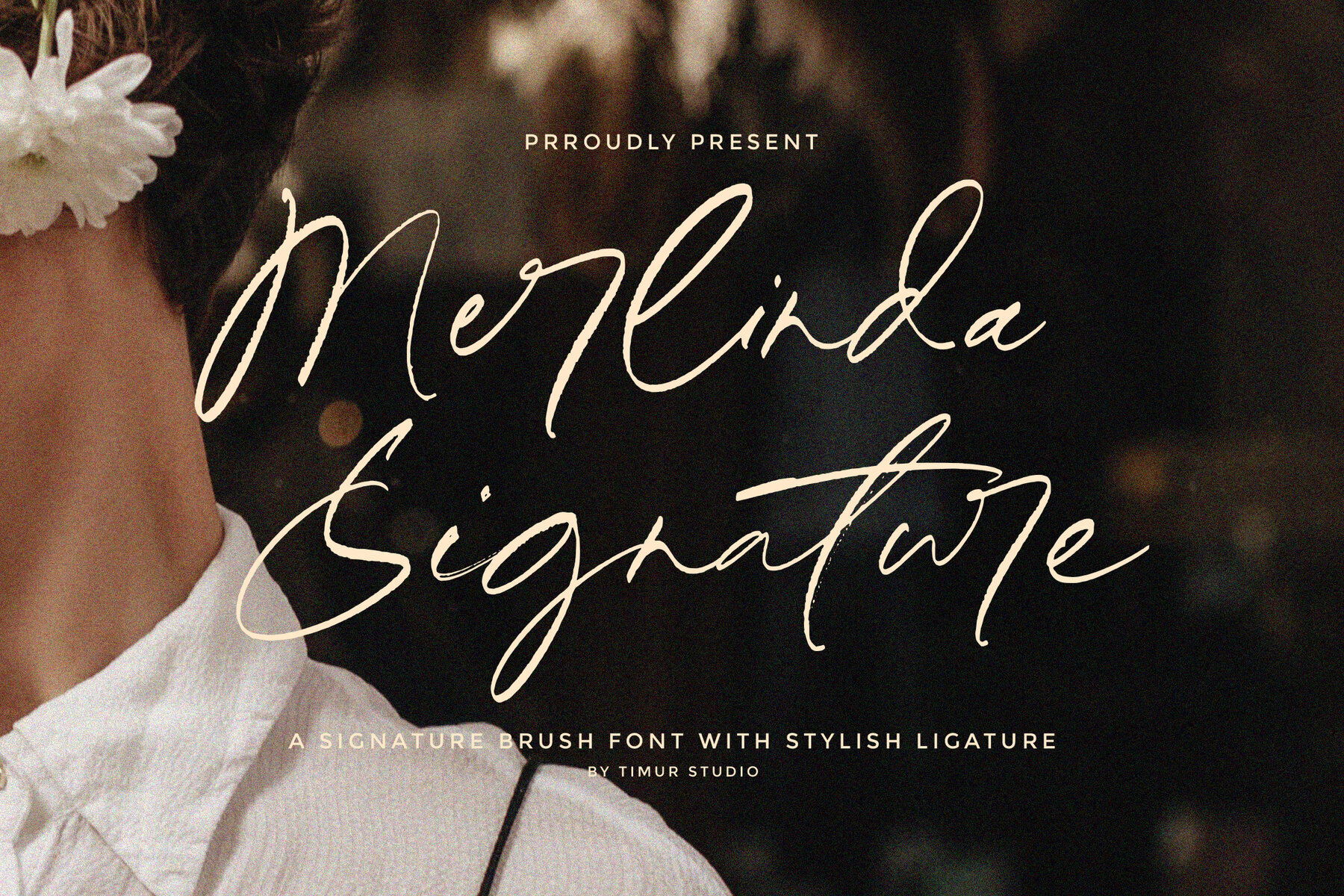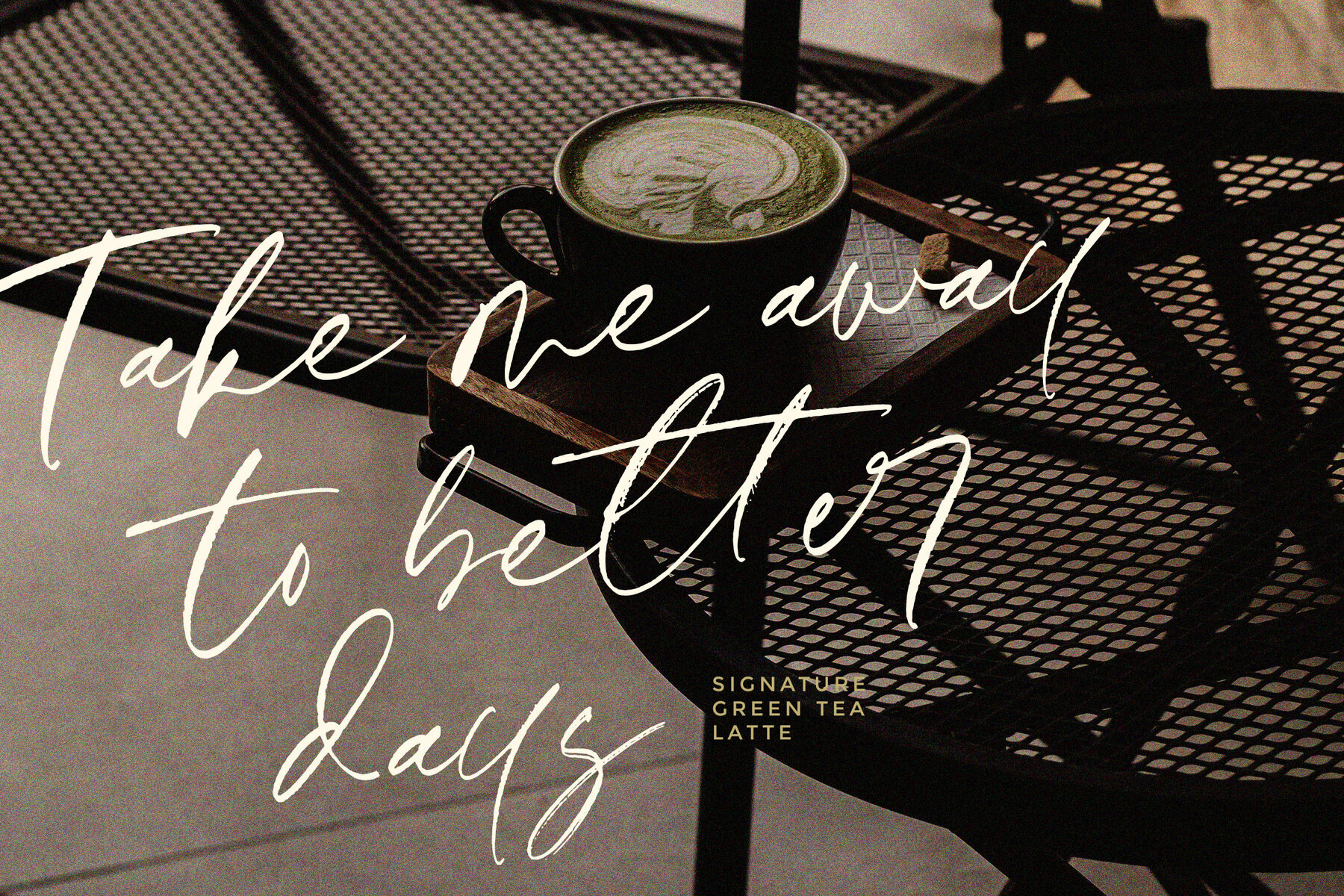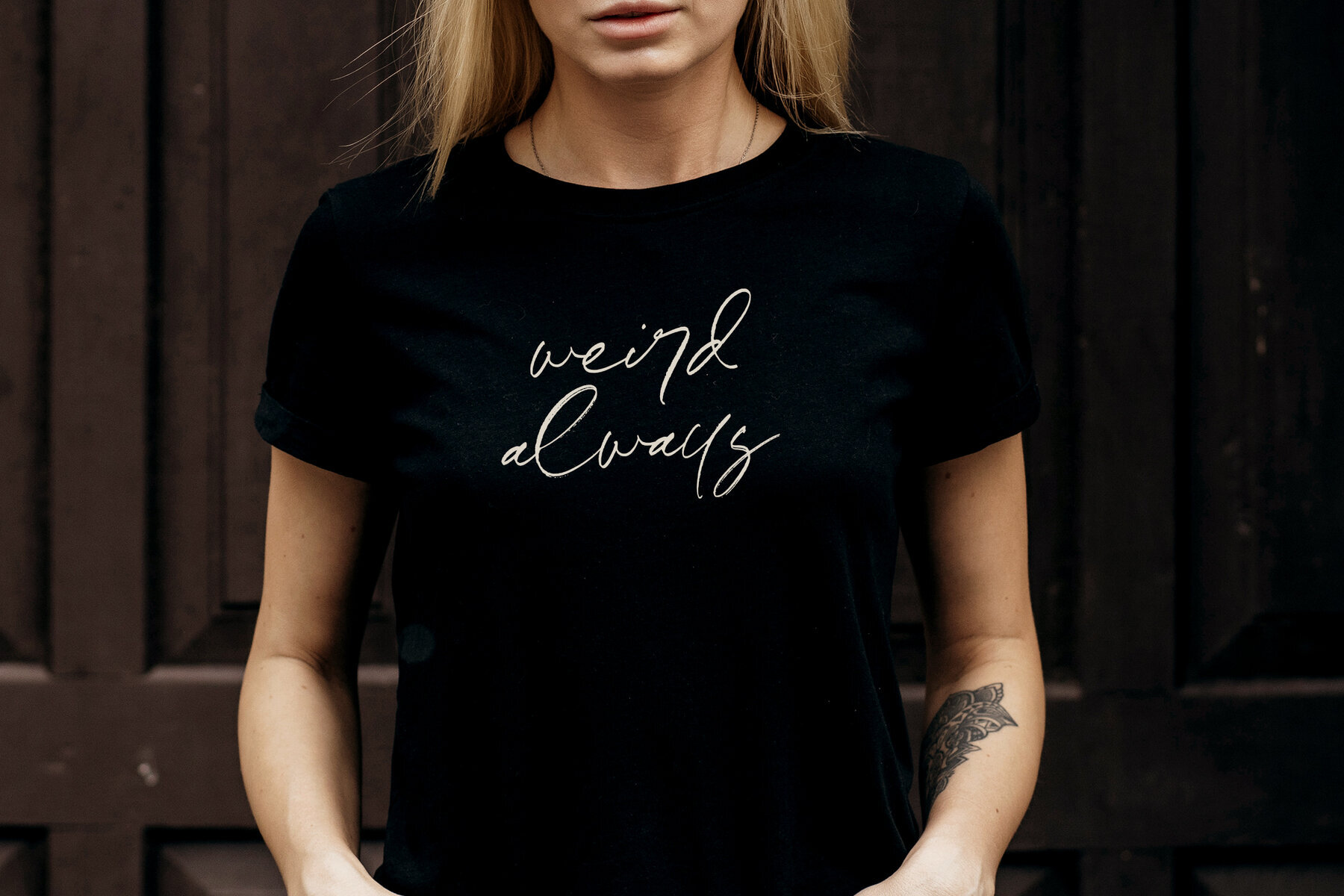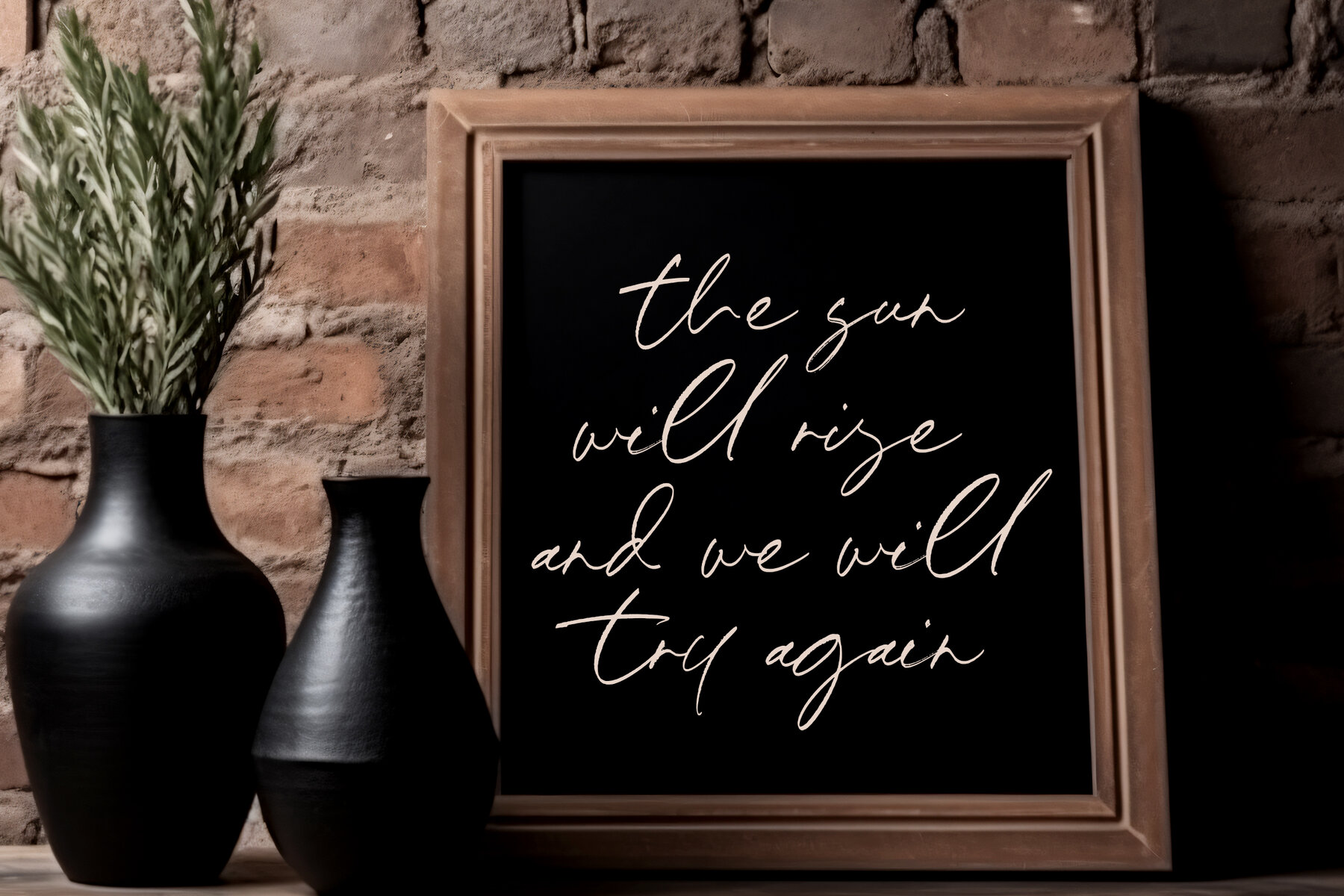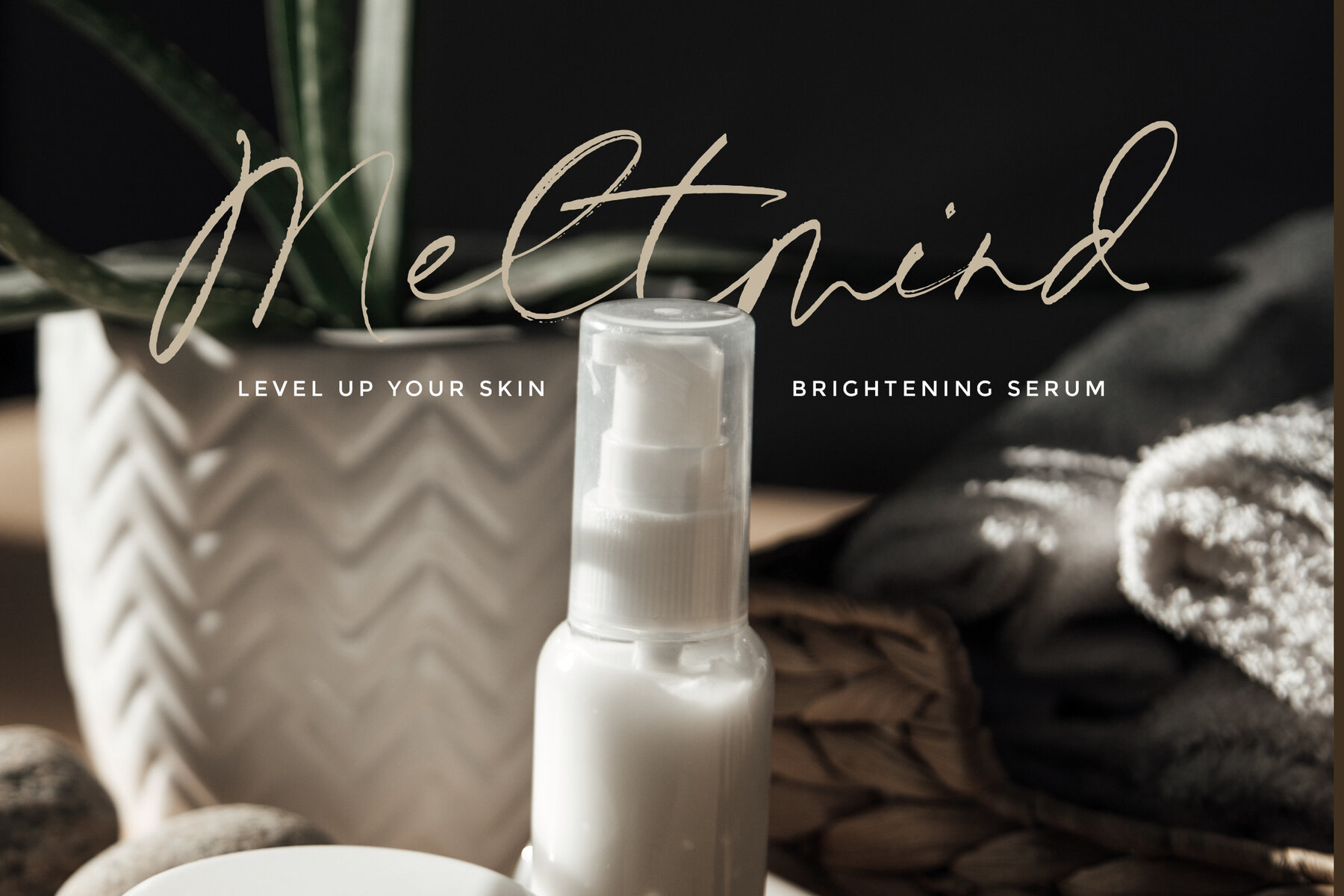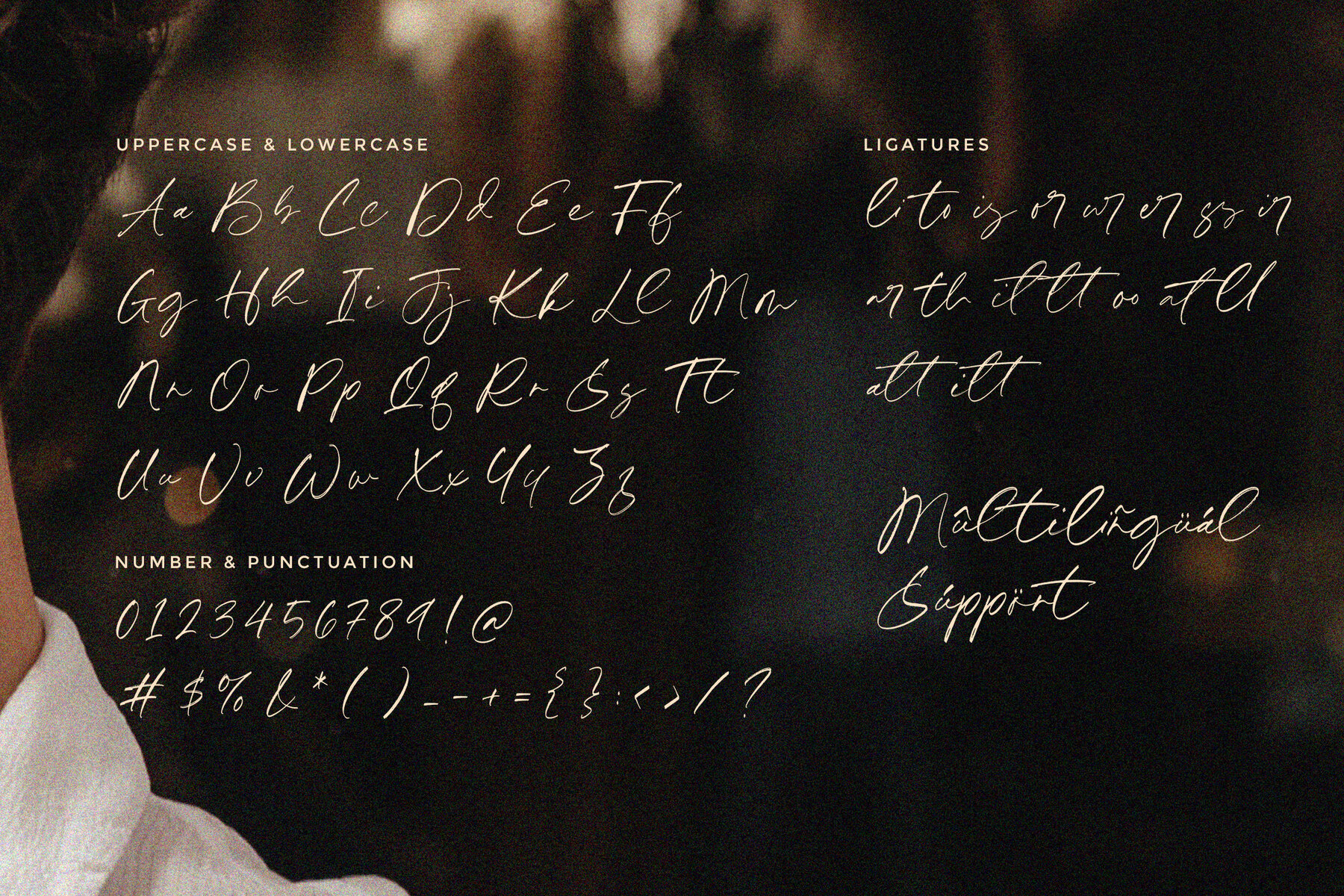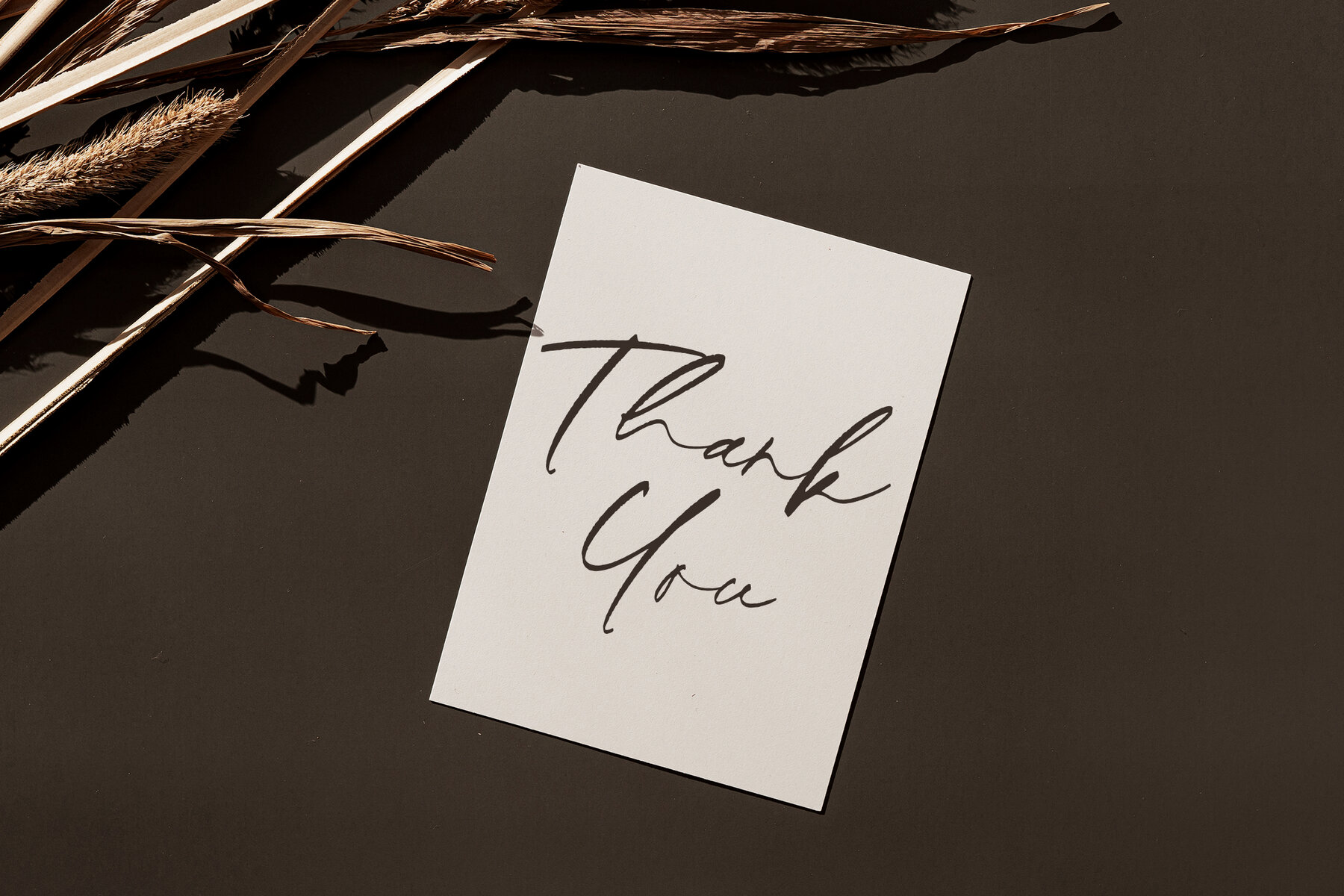
Merlinda Signature Font
Merlinda Signature
Merlinda Signature is a Signature Brush Font, This font is a luxurious and elegant choice for your design projects. With its fluid and graceful letterforms, this font emulates the beauty and sophistication of a handcrafted signature. The gentle brush strokes and subtle variations in line weight give the Merlinda Signature font a natural and organic feel, evoking a sense of authenticity and personal touch. The font also features stylish ligatures, which adds a touch of flair and uniqueness to your text. Whether you’re aiming for a refined and upscale look or a romantic and sentimental feel, the Merlinda Signature font offers versatility and refinement. Embrace the timeless beauty of the Merlinda Signature brush font and elevate your designs with its exquisite and distinctive style.